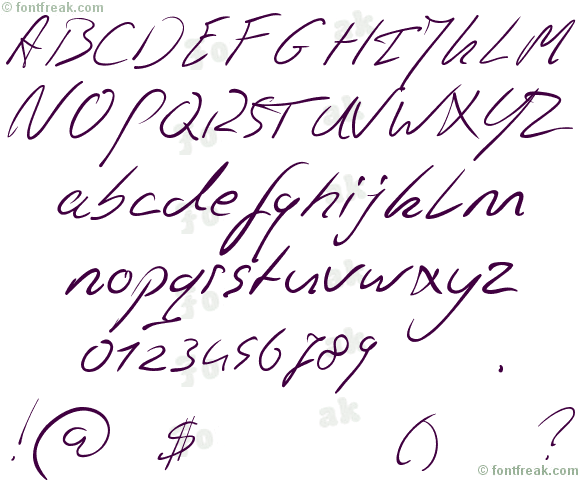
Jaspers Handwriting
About Jaspers Handwriting
Jaspers Handwriting is a charming handwritten font designed by Roland Huse, categorized as a script typeface. With its fluid and natural strokes, the font emulates the feel of genuine handwriting, making it an excellent choice for projects that require a personal touch. The stroke weight is moderately varied, providing a sense of dynamism, while the overall contrast remains subtle, enhancing readability without sacrificing style. The spacing between letters is well-balanced, allowing for clarity and ease of use in various applications.
This font is particularly suited for a range of creative projects. It shines in wedding invitations, where its elegant and romantic qualities can add a special flair to the occasion. For small businesses, such as cafes or artisanal shops, Jaspers Handwriting can enhance restaurant menus or branding materials, giving them a warm and inviting feel. Additionally, it can be effectively used in greeting cards and personal stationery, allowing users to convey heartfelt messages in a visually appealing manner. Graphic designers will find this font useful for creating eye-catching social media graphics and promotional materials, as it adds a unique, personal element that resonates with audiences.
Targeting graphic designers, small business owners, and content creators, Jaspers Handwriting offers versatility and charm. The font caters to those who want to stand out with a handwritten aesthetic, making it an appealing choice for various applications.
In conclusion, Jaspers Handwriting font free download is a standout option for anyone looking to infuse their designs with personality and warmth. Its beautiful, flowing lines and approachable style make it a perfect fit for both personal and professional projects, ensuring that your work captures attention and leaves a lasting impression.